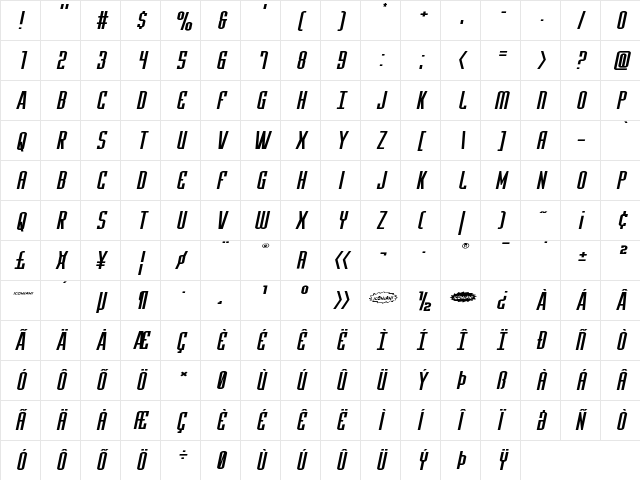
Y-Files Extra-Expanded Italic Extra-Expanded Italic
Design Context for Y-Files Extra-Expanded Italic Typeface
Y-Files Extra-Expanded Italic is a composed and adaptable typeface that performs quietly and consistently across a wide range of design contexts. Its italic angle brings a sense of urgency and motion to the letterforms.